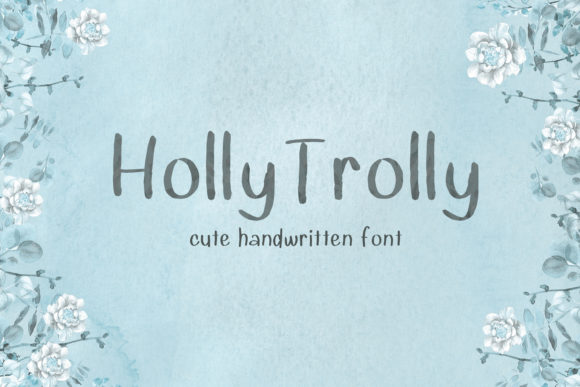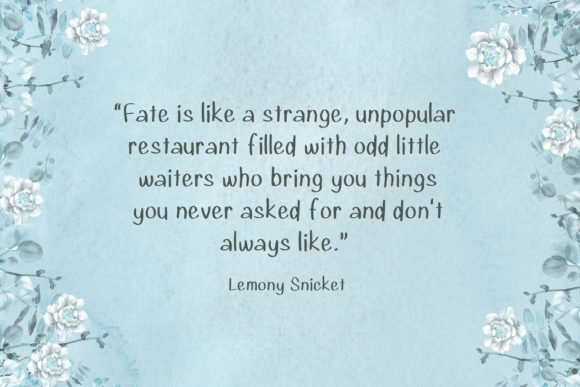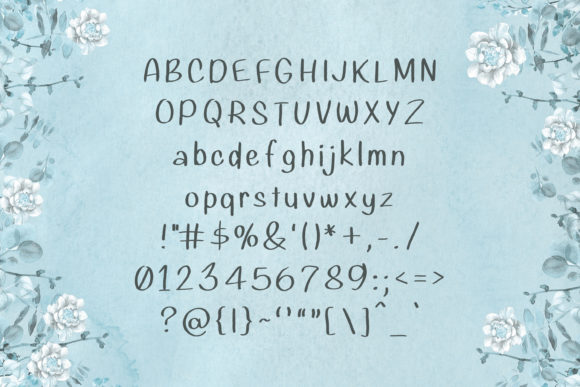
Holly Trolly Font
About Holly Trolly Font
Holly Trolly embodies fun, quirkiness and authenticity. Its casual charm makes it appear wonderfully down-to-earth, readable and, ultimately, incredibly versatile. This versatility will appeal to a wide range of crafty ideas, from letterheads and titles, to stationery.